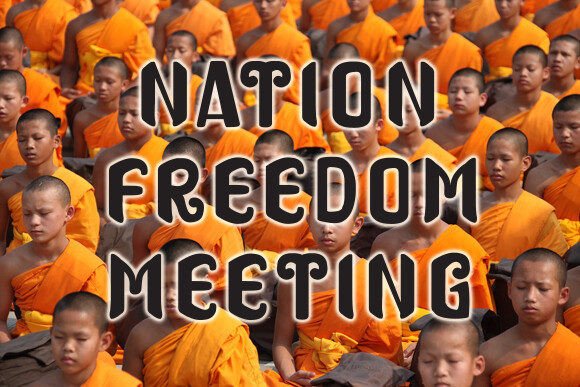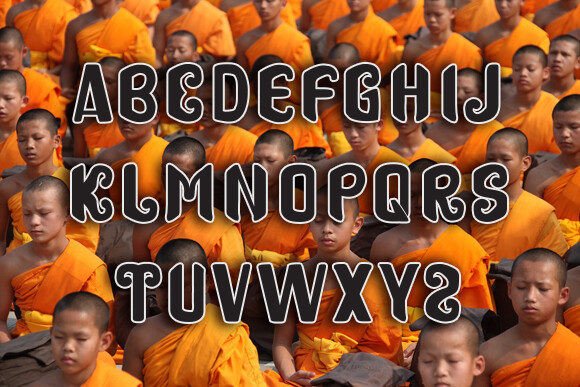
Introduction to People Font
Have you ever been in the middle of a creative project, pouring your heart and soul into it, and suddenly you stumble upon the perfect font that brings it all together? That’s exactly what happened to me when I discovered the People Font. This gorgeous, curly typeface is a game-changer for any designer looking to add a touch of personality to their work.
As a designer, you know how valuable a great font can be. It’s the difference between a good design and a great one. And that’s why I’m excited to share the People Font with you. Whether you’re working on a poster, flyer, or t-shirt design, this font is sure to make it stand out. And the best part? It’s available for free download, making it a fantastic addition to any designer’s toolkit.
With its high-quality design and transparent background, the People Font is a versatile resource that can be used in a variety of creative contexts. So why settle for a boring, generic font when you can add some personality to your work with the People Font?
Key Features of People Font
- High-quality vector graphics for a clear and crisp appearance in any design project.
- Includes a transparent background option for easy customization and versatility in design.
- Perfect for use in social media graphics, website design, and other creative projects where a human touch is essential.
Honest Review: People Font
I recently had the chance to work with the People Font and I have to say, it’s been a game-changer for my creative projects. The high quality of the font is evident from the moment you download it, and the transparent background makes it super easy to use.
What works well: ✨ The People Font is incredibly versatile and can be used for a wide range of design projects. I love how it looks on both digital and print materials. The font is also super easy to customize, which is a huge plus for me. Plus, it’s free to download, which is a major bonus.
Here are some of my favorite features of the People Font:
- High quality design that’s perfect for creative projects
- Super easy to customize
Limitations: ⚠️ While the People Font is overall a great resource, I do wish it came in more font styles. At times, I found myself wishing for a bold or italic version, but overall, it’s a minor complaint.
Overall impression: I’m really impressed with the People Font and I would highly recommend it to any designer looking for a high-quality, free design resource. It’s perfect for a wide range of creative projects and is super easy to use.
How to Use People Font
Tips for Getting the Most Out of People Font
To get the most out of the People Font, use it in combination with other high-quality design resources. Experiment with different font sizes, colors, and styles to create unique and engaging designs.
The People Font is perfect for various creative projects, including social media graphics, blog posts, and marketing materials. Its high-quality design and transparent background make it a versatile design resource for any project.
Q: Is the People Font a high-quality design resource?
Yes, the People Font is a high-quality design resource, carefully crafted to provide crisp and clear typography. It’s perfect for use in a variety of design projects, from print to digital media.